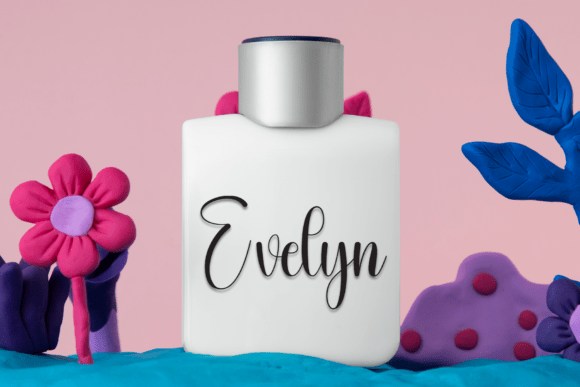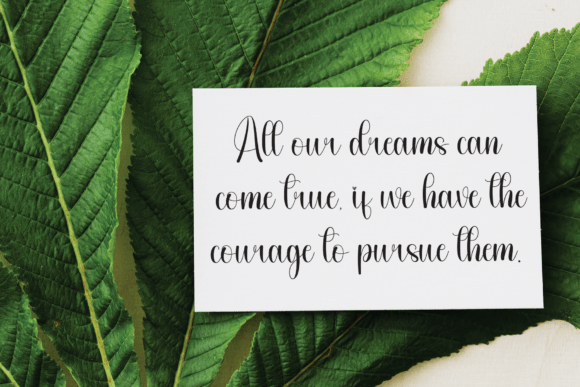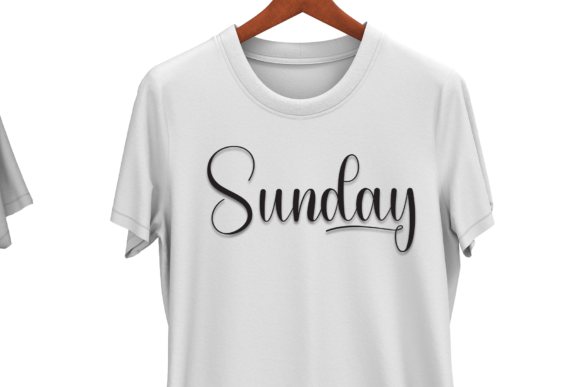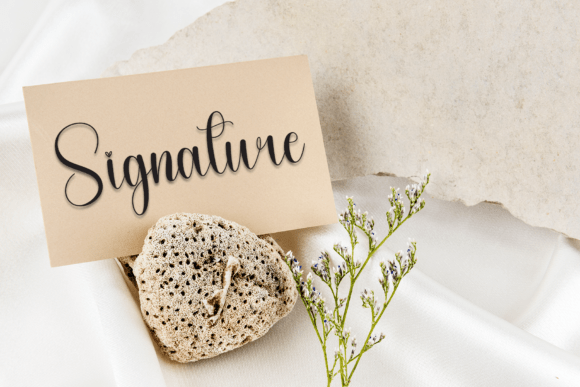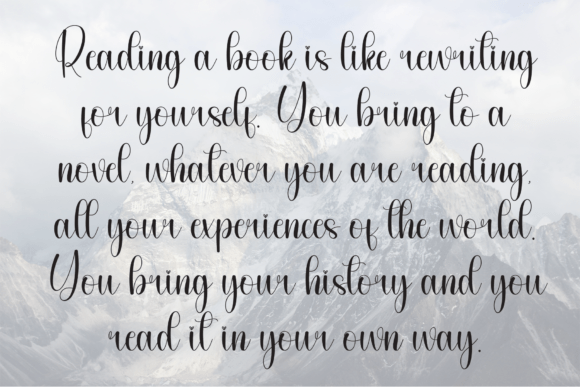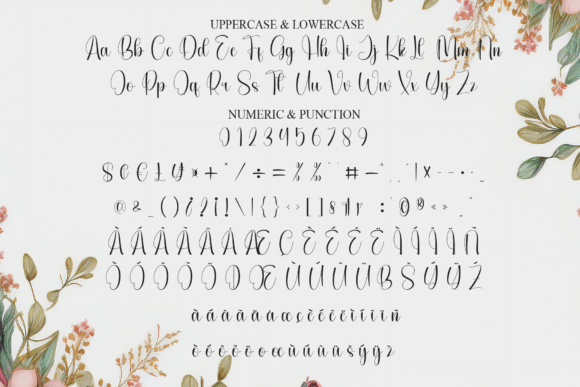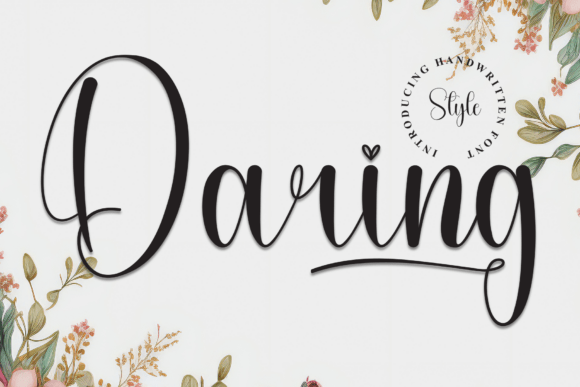
Daring Font: Elevate Your Designs with Elegance and Playfulness
In the world of typography, few fonts manage to strike a balance between elegance and playfulness. Daring Font, a charming handwritten script font, is one such gem that seamlessly blends sophistication with a dash of whimsy. Its unique blend of graceful swashes, smooth curves, and a distinctive heart-shaped dot over the ‘i’ makes it an ideal choice for designers and crafters looking to add a touch of romance and personality to their projects.
The Characteristics of Daring Font
Daring Font is characterized by its flowing, cursive script that exudes warmth and charm. The font features:
- Graceful Swashes: The font’s swashes add a touch of elegance, making it perfect for headings, titles, and emphasis.
- Smooth Curves: The smooth, flowing curves of Daring Font give it a soft, human touch that’s ideal for designs that require a personal feel.
- Heart-Shaped Dot: The distinctive heart-shaped dot over the ‘i’ adds a playful twist, setting Daring Font apart from more traditional script fonts.
Perfect for Romantic Designs and Branding
Daring Font’s unique blend of elegance and playfulness makes it an excellent choice for romantic designs, branding, and projects that require a soft, human touch. Whether you’re designing:
- Wedding Invitations: Daring Font’s elegant swashes and playful heart-shaped dot make it perfect for wedding invitations, save-the-date cards, and other wedding-related designs.
- Branding and Packaging: The font’s warm, charming personality makes it an excellent choice for branding and packaging designs that require a personal touch.
- Social Media Graphics: Daring Font’s playful, elegant design makes it ideal for social media graphics, including Facebook posts, Instagram stories, and Twitter headers.
Why Choose Daring Font?
With so many fonts available, why choose Daring Font for your next project? Here are just a few reasons:
- Unique Personality: Daring Font’s distinctive heart-shaped dot and elegant swashes give it a unique personality that sets it apart from other script fonts.
- Versatility: The font’s smooth curves and flowing script make it suitable for a wide range of projects, from romantic designs to branding and social media graphics.
- Easy to Read: Despite its elegant, cursive design, Daring Font is easy to read, making it perfect for designs that require a clear, legible font.
Tips for Using Daring Font
To get the most out of Daring Font, here are a few tips:
- Use it as a Headline Font: Daring Font’s elegant swashes and playful heart-shaped dot make it perfect for headlines and titles.
- Pair it with a Sans-Serif Font: For body text, pair Daring Font with a clean, sans-serif font to create a beautiful contrast.
- Experiment with Swashes: Don’t be afraid to experiment with Daring Font’s swashes to add a touch of elegance to your designs.
Daring Font is a charming handwritten script font that offers the perfect blend of elegance and playfulness. With its unique personality, versatility, and ease of use, it’s an excellent choice for designers and crafters looking to add a touch of romance and personality to their projects. Whether you’re designing wedding invitations, branding materials, or social media graphics, Daring Font is sure to elevate your designs and leave a lasting impression.